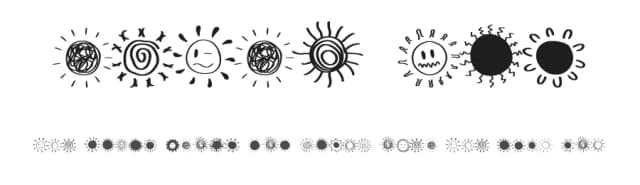
About Businessa Font
Businessa Specifications
| Font Family | Businessa |
| Full Name | Businessa |
| Glyph Count | 59 glyphs |
| PostScript Name | BusinessaRegular |
| Designer | Sakti Avellin |
Businessa Font is a versatile dingbats font that works for both headings and body text. Pair it with a contrasting sans-serif or serif font to add visual interest and a clear distinction between titles and body copy.
Businessa Font